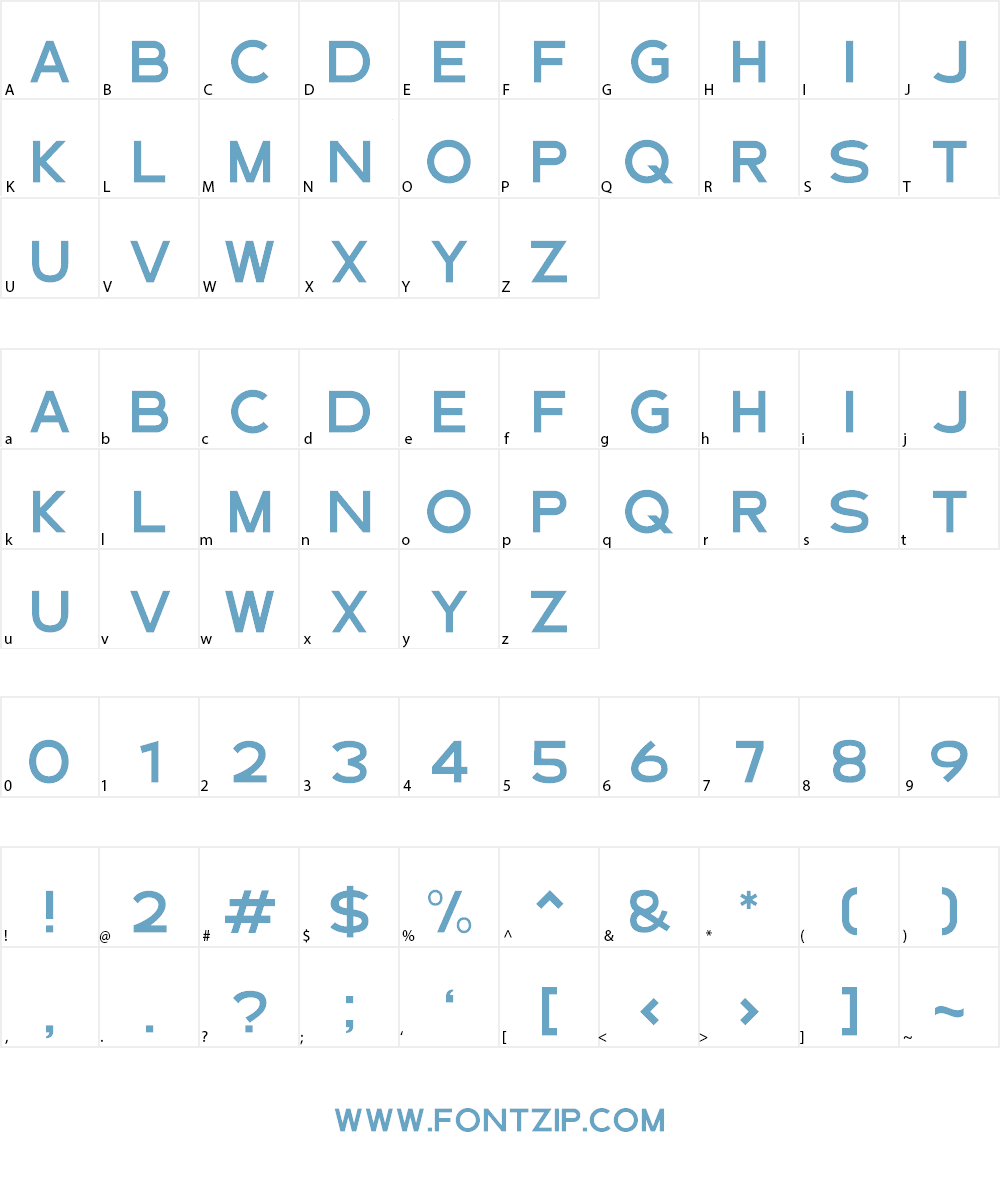
COSANS PRO is a modern display sans font with a bold look and powerful. COSANS PRO is ready and Perfectly fit for your logo designs, headline, music projects & social media posts, event poster, brand imagery, product packaging, quotes, merchandise, etc. More importantly, please don't hesitate to drop me a message if you have any issues or queries.